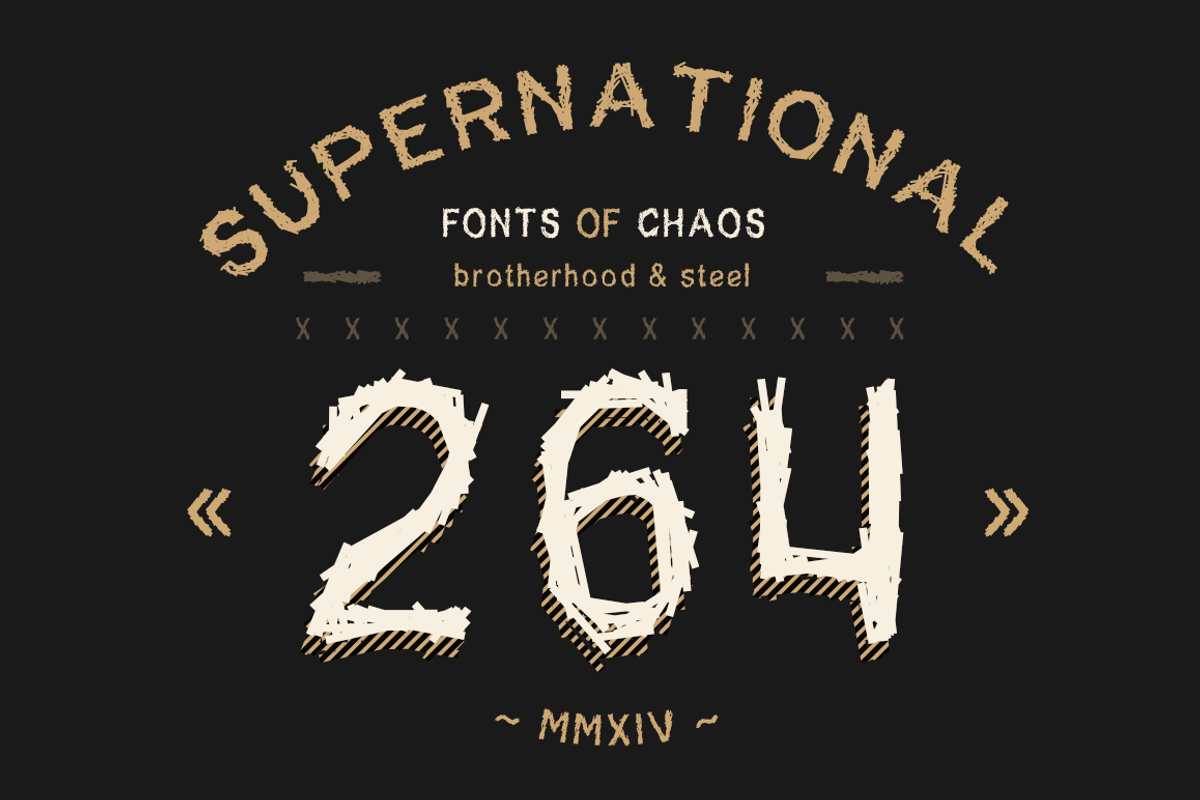
Bold, dynamic, and full of character, SuperNational 264 Font Free Download is a powerful display typeface designed to make a strong visual impact. Perfect for logos, posters, branding, advertisements, and any project that needs to command attention, this font delivers a contemporary, high-energy style that stands out.
With its thick, well-defined letterforms and modern design, SuperNational 264 offers both strength and clarity, making it a great choice for designs that require boldness without sacrificing readability.